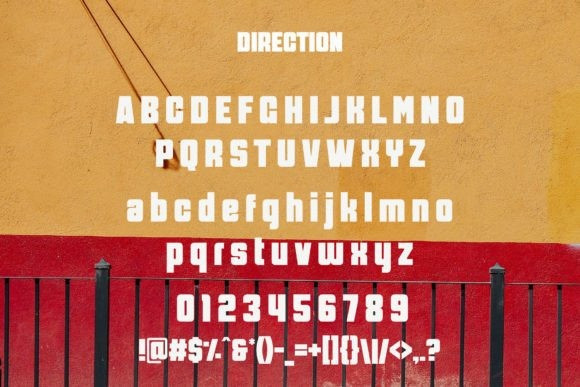
Direction Font
Direction Font – Modern Display Sans, is a modern and simple font, best used as a display for headings, logos, branding, magazines, product packaging, and invitations. Direction comes with clean lines and smooth curves giving any project an extra touch of class.